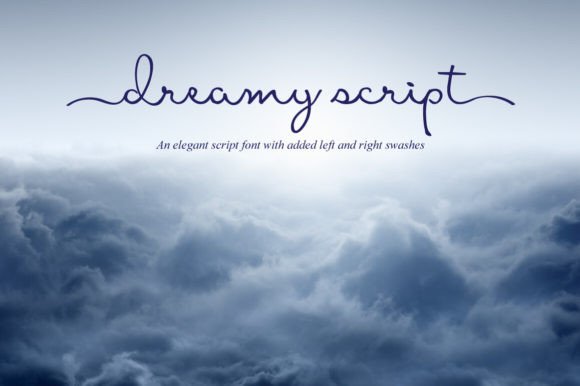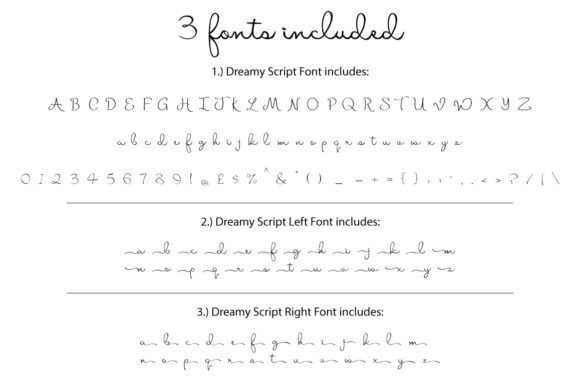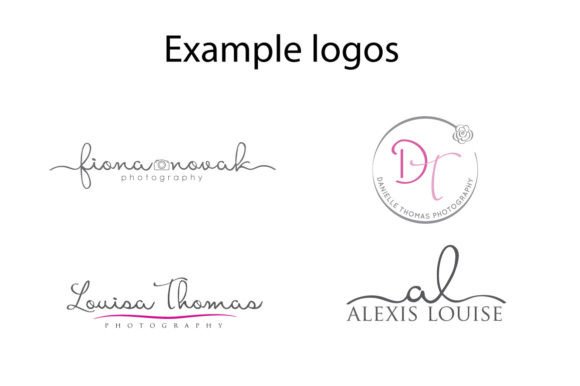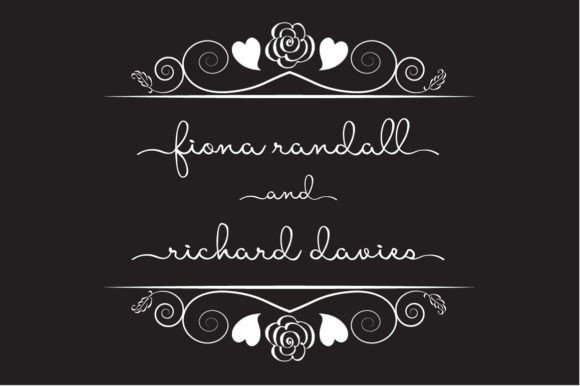
Dreamy Script Font: Elegant Calligraphy for Wedding Invitations & Branding
About the Dreamy Script Font
Crafted with precision, the Dreamy Script Font is ready to bring your ideas to life. Dreamy Script is a hand drawn, elegant and flowing font. It can be used for a wide range of projects, such as logo designs, party & wedding invitations, t-shirt designs, signs, magazine design, greetings cards, poster design and much more!
Dreamy Script excels in applications requiring a touch of elegance and personality, such as logos, wedding invitations, and short-form text on posters or packaging. Its flowing nature makes it ideal for headings and short impactful statements. However, its highly decorative style is unsuitable for body text or UI elements where legibility at small sizes is crucial. Long paragraphs set in Dreamy Script would be difficult to read.
This script font’s inherent charm pairs well with clean, modern sans-serif fonts like Open Sans or Lato for a balanced contrast. For a more traditional feel, a classic serif like Garamond or Times New Roman provides a sophisticated counterpoint. Avoid pairing it with other highly decorative or script fonts, as this could result in visual clutter.
Dreamy Script projects a sophisticated yet approachable personality, lending itself to brands aiming for a romantic, whimsical, or feminine aesthetic. It’s less suitable for projects requiring a strong, bold, or minimalist feel.
Dreamy Script Font Usage Examples
Dreamy Script Font Example